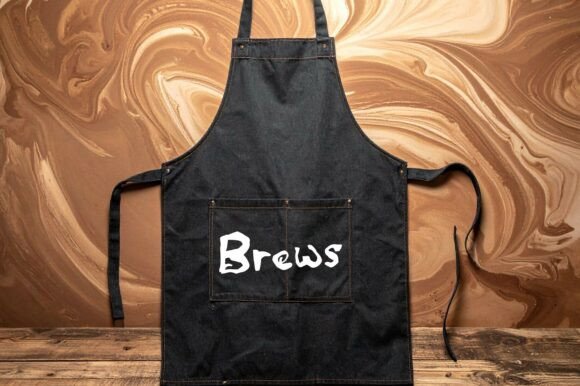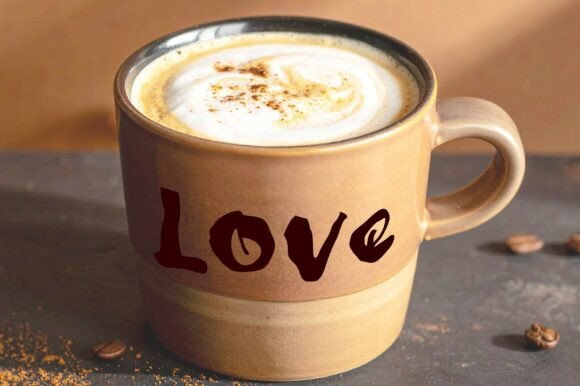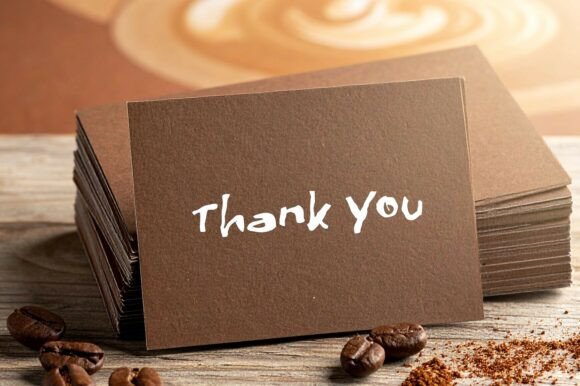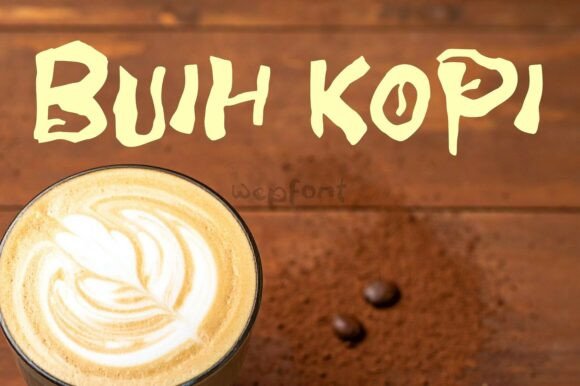
Unleash the Vibrancy of “Buih Kopi” Font: Elevate Your Designs with a Unique Display Font
In the realm of typography, few fonts manage to capture the essence of a dynamic environment as effectively as “Buih Kopi.” This stand-out display font embodies the lively spirit of a bustling coffeehouse scene, making it an ideal choice for designers seeking to infuse their projects with a dose of energy and creativity. With its distinctive brushstroke calligraphy, “Buih Kopi” brings a sense of authenticity and spontaneity to the table, mirroring the fluid, artistic nuances of informal handwriting.
The Inspiration Behind “Buih Kopi”
Conceived with the aim of replicating the swift, yet artistic movements of handwriting, “Buih Kopi” boasts an individualistic charm that sets it apart from more conventional fonts. Its design draws inspiration from the vibrant atmosphere of coffeehouses, where creativity and conversation flow as freely as the coffee. This font captures the warmth, vitality, and intriguing personality of such settings, making it perfect for projects that require a touch of international flair and a lot of character.
Key Features of “Buih Kopi”
- Authentic Brushstroke Calligraphy: The font’s unique brushstroke calligraphy gives it an authentic, handcrafted feel that is sure to capture the attention of your audience.
- Complete Set of Standard Punctuation Glyphs: “Buih Kopi” comes equipped with a full set of standard punctuation glyphs, ensuring that designers have all the tools they need to create cohesive and polished work.
- Versatile and Adaptable: Whether you’re crafting bespoke identities for coffee houses, bistros, refreshment labels, or any project that requires a dash of personality, “Buih Kopi” proves to be the perfect choice.
Applications of “Buih Kopi”
The versatility of “Buih Kopi” makes it suitable for a wide range of applications. Here are a few ideas to get you started:
- Coffee Houses and Bistros: Create a unique brand identity for your coffee house or bistro with “Buih Kopi.” Its vibrant and energetic feel is sure to attract customers and set your establishment apart from the competition.
- Refreshment Labels: Add a touch of personality to your product labels with “Buih Kopi.” This font’s international allure and warmth make it an excellent choice for brands looking to connect with their audience on a more personal level.
- Marketing and Advertising: Use “Buih Kopi” in your marketing and advertising materials to add a creative and artistic touch. Its unique calligraphy can help your campaigns stand out in a crowded marketplace.
Why Choose “Buih Kopi”?
Choosing “Buih Kopi” for your design projects ensures that your creations are more than just visually appealing—they’re memorable, engaging, and reflective of your brand’s personality. Here are a few reasons why “Buih Kopi” stands out:
- Unique and Memorable: In a sea of generic fonts, “Buih Kopi” offers a breath of fresh air with its distinctive style that can help your brand leave a lasting impression.
- Easy to Use: With its compatibility with major design platforms and comprehensive set of glyphs, “Buih Kopi” ensures a seamless design process, allowing you to focus on creativity rather than technicalities.
- Versatility: From digital media to print, “Buih Kopi” adapts effortlessly to various mediums, making it a valuable addition to your font library.
In conclusion, “Buih Kopi” is more than just a font—it’s a design statement. With its vibrant charisma, authenticity, and versatility, it offers designers the perfect tool to create stunning, bespoke identities that resonate with their audience. Whether you’re a seasoned designer or a novice looking to elevate your projects, “Buih Kopi” invites you to explore new dimensions of creativity and make your mark with style.